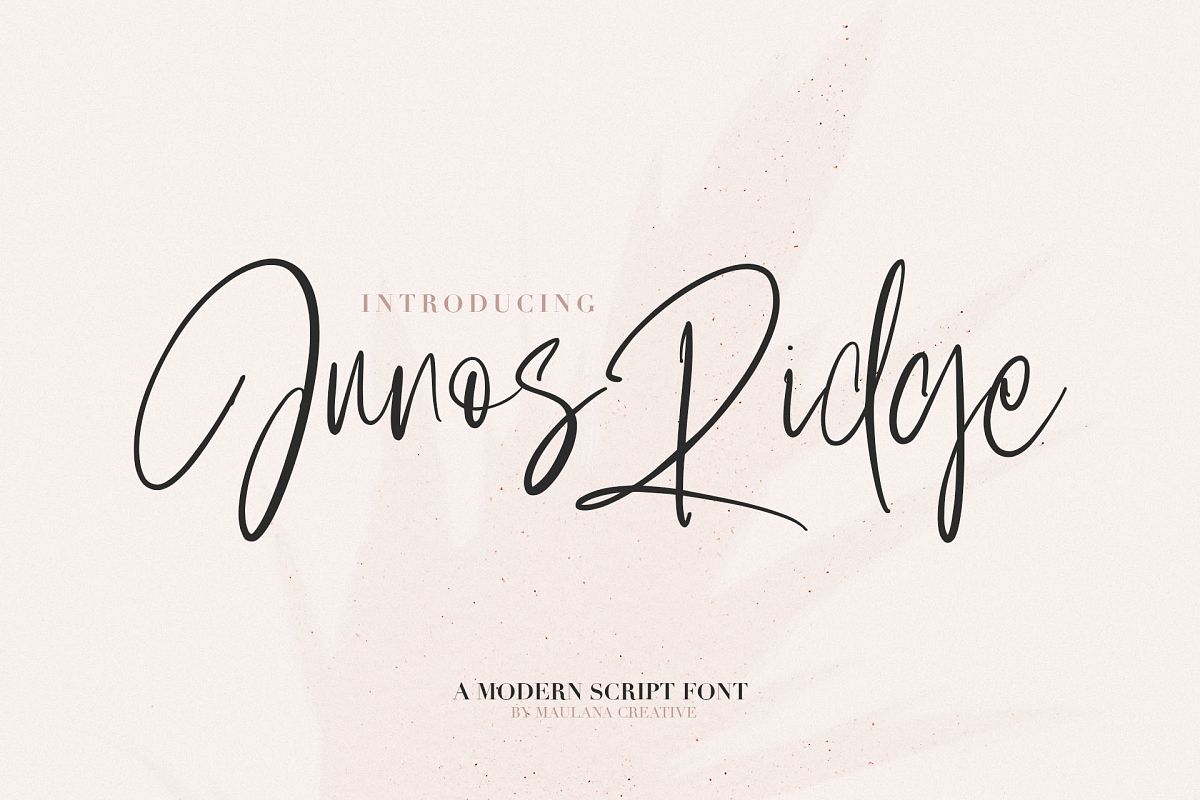
Give your designs an authentic handcrafted feel. "Junos Ridge" is perfectly suited to signature, stationery, logo, typography quotes, magazine or book cover, website header, clothing, branding, packaging design and more. Included Ligatures.